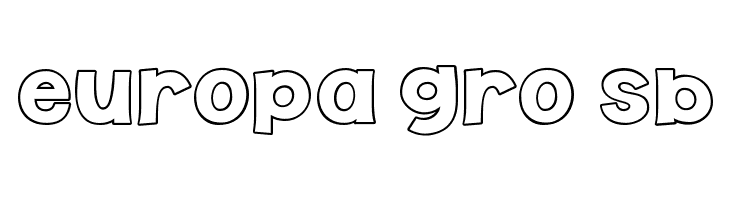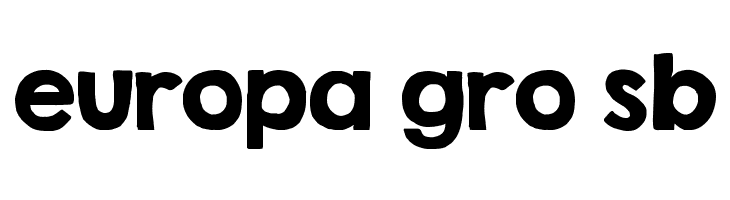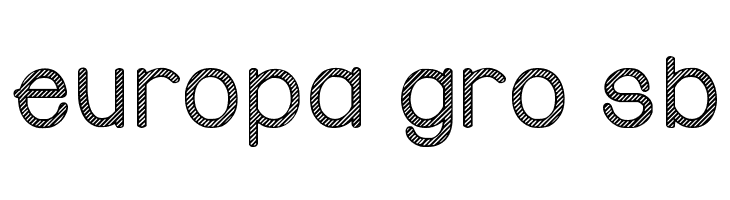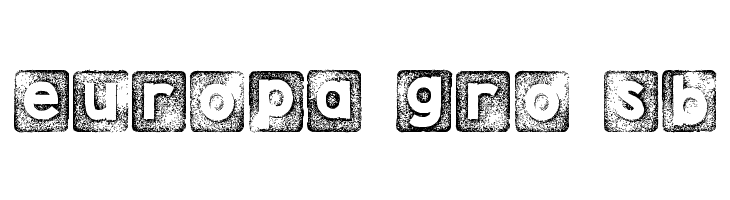
A dotted educational font designed for handwriting practice.
A playful, dotted decorative font with consistent stroke width.
A playful, bold font with bubble-like, rounded outlines.
A playful, sketch-style font with bold, hand-drawn characters.
A playful, rounded unicase font with smooth, continuous lines.
A playful, striped decorative font ideal for festive designs.
A playful, handwritten font with rounded edges and a friendly appearance.
A bold, distressed font with a vintage, stamped look.